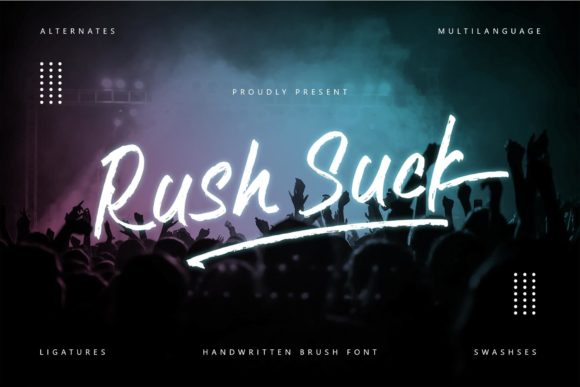
Journey into the world of Rush Suck Font, a captivating handwritten font that dances across your screens with its casual and trendy flair. Discover the charm of this script font, designed by Alit Design with meticulous attention to detail. Rush Suck is a font that speaks to the heart, inviting you to explore its enchanting glyphs and swashes, effortlessly accessible thanks to its PUA encoding.
Indulge in the boundless versatility of Rush Suck, a font that adapts seamlessly to your creative visions. Its playful style suits a myriad of projects, from handwritten notes and captivating logos to eye-catching social media posts and stunning invitations. With Rush Suck as your creative companion, the possibilities are endless.
Unleash your imagination and let Rush Suck's graceful strokes guide you towards remarkable designs. Craft movie posters that come alive with cinematic appeal, design T-shirts that exude a touch of casual elegance, or create personalized mugs with heartfelt messages. The world of Rush Suck awaits your exploration, inviting you to leave an indelible mark on the world of design.
Don't resist the pull of Rush Suck's magnetic allure. Experience the joy of creating with a font that inspires and captivates. Let your creativity soar as you witness your designs flourish with the beauty of Rush Suck. Embrace the chance to make a lasting impression, to craft designs that resonate with emotion and leave a lasting impact.
Rush Suck is more than just a font; it's an invitation to unleash your creative spirit. Dare to be different, to break free from convention, and to let your designs speak volumes. With Rush Suck at your fingertips, you hold the power to transform your creative dreams into tangible realities. Seize the moment and make Rush Suck your font of choice.